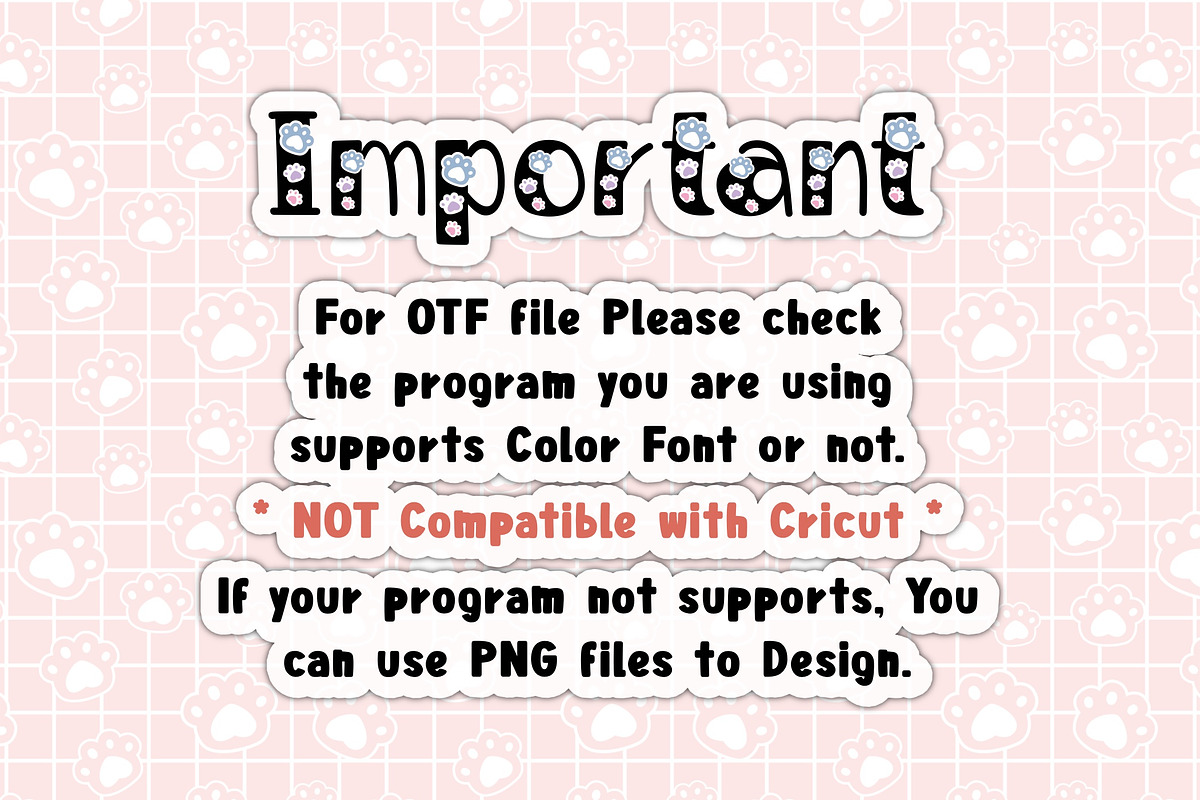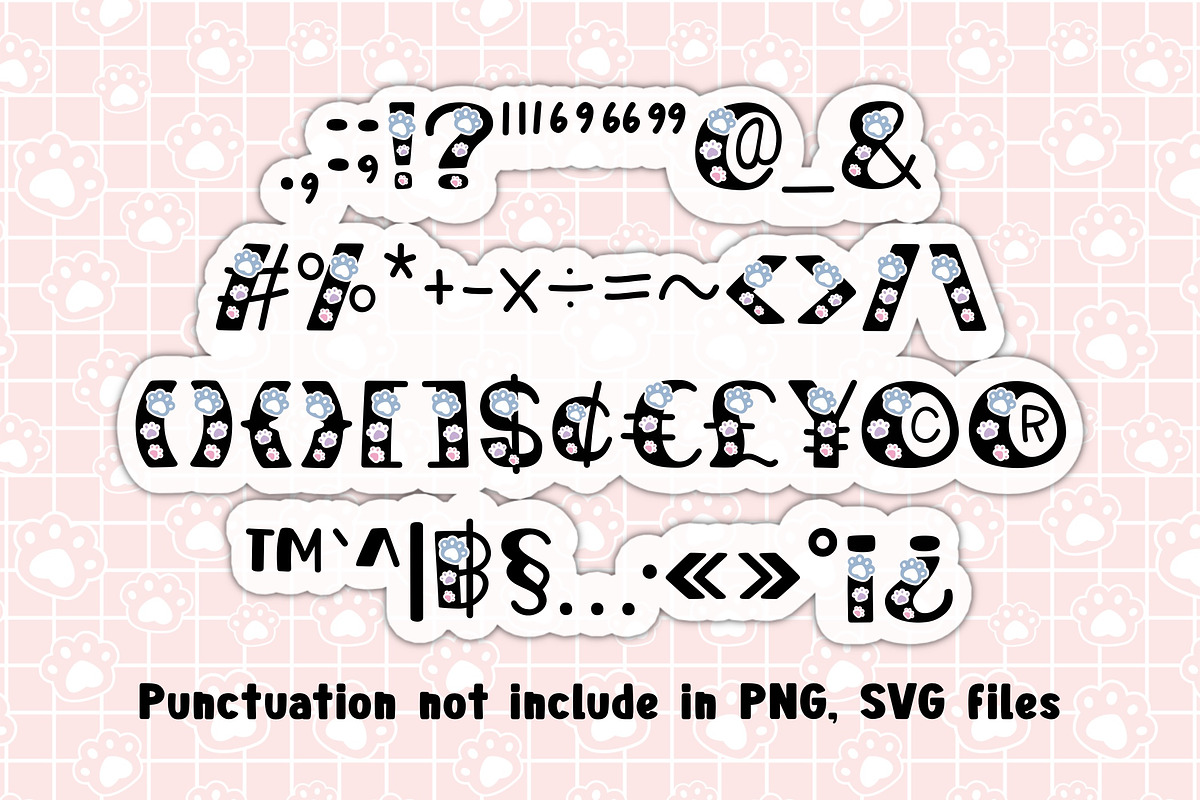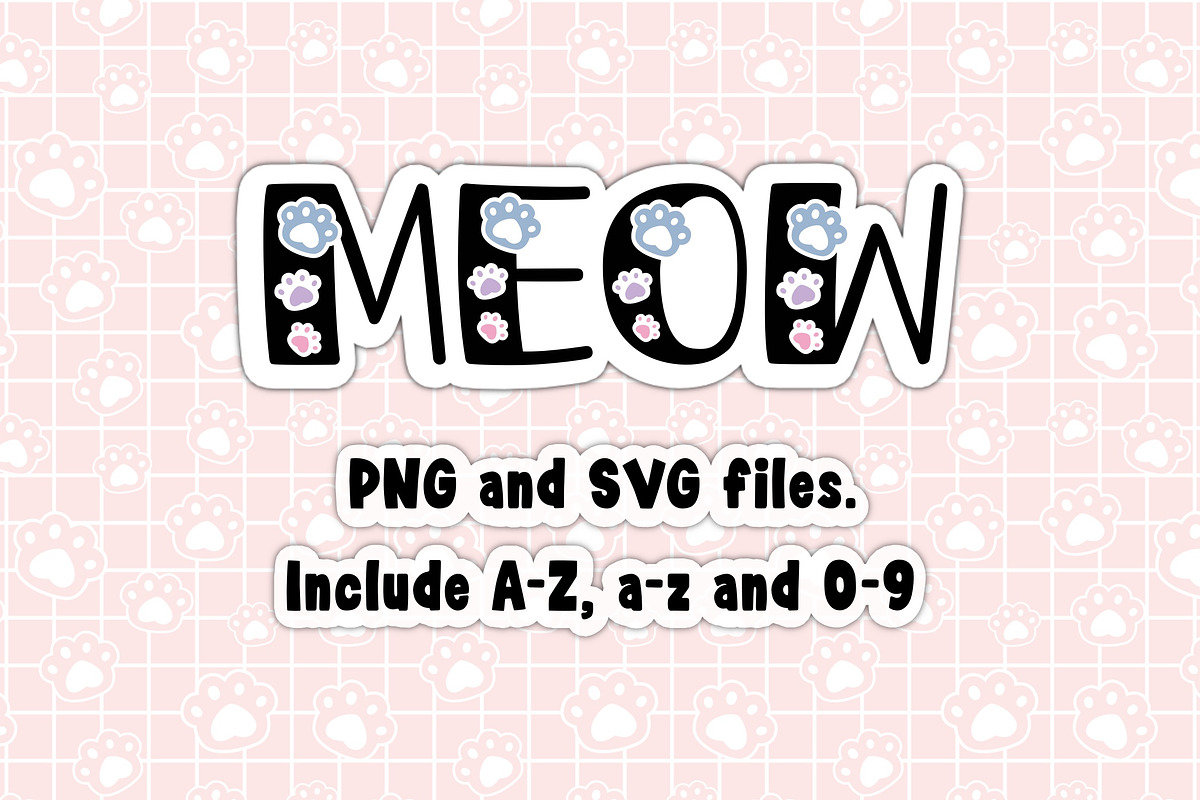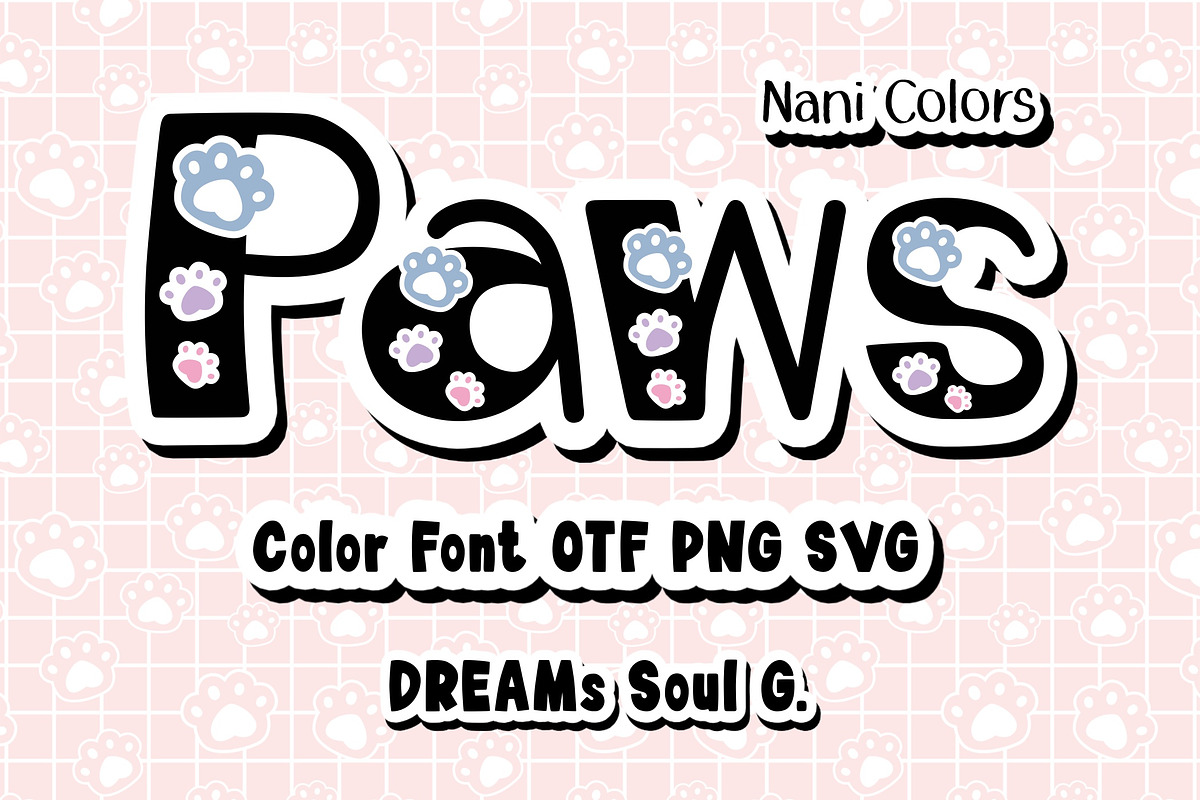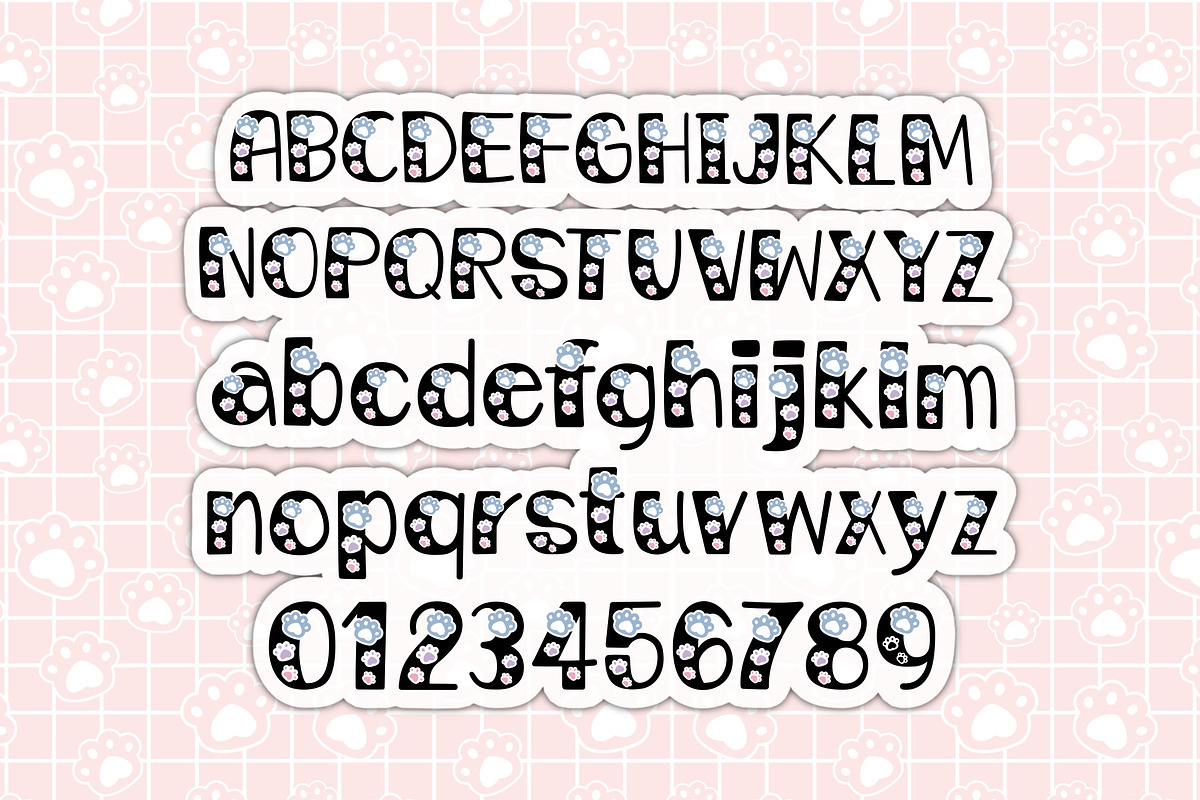
Paws Nani Colors OTF PNG SVG
Paws Nani Colors is a playful and heartwarming color font inspired by the adorable charm of cat paw prints. Perfect for children's books, pet-themed branding, cute packaging, and fun stickers, this font features soft pastel paw graphics embedded within bold black letters. Available in OTF, PNG, and SVG formats, it’s easy to use across digital and print projects. Let your designs walk with cuteness — one paw at a time!